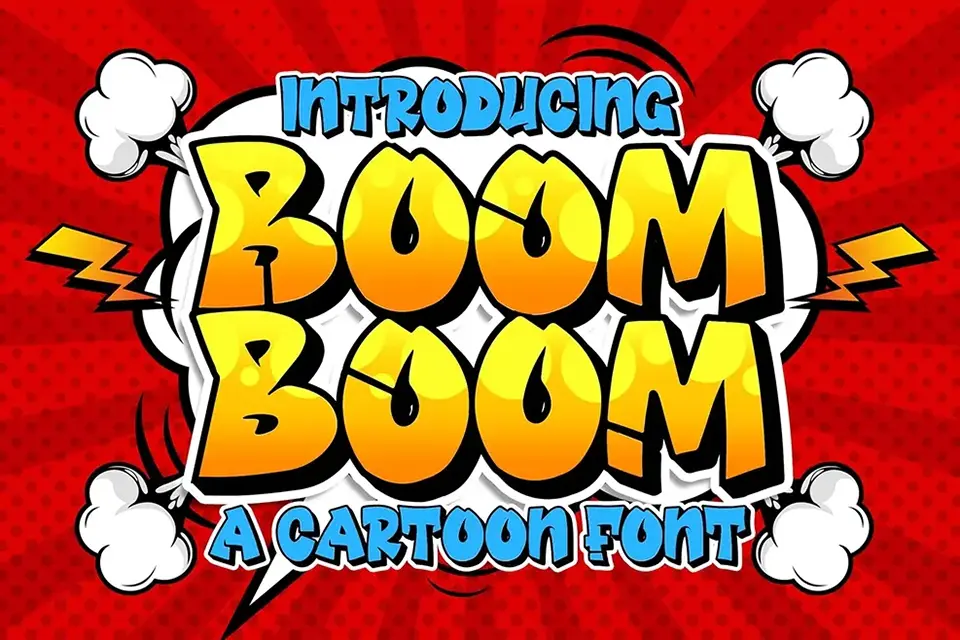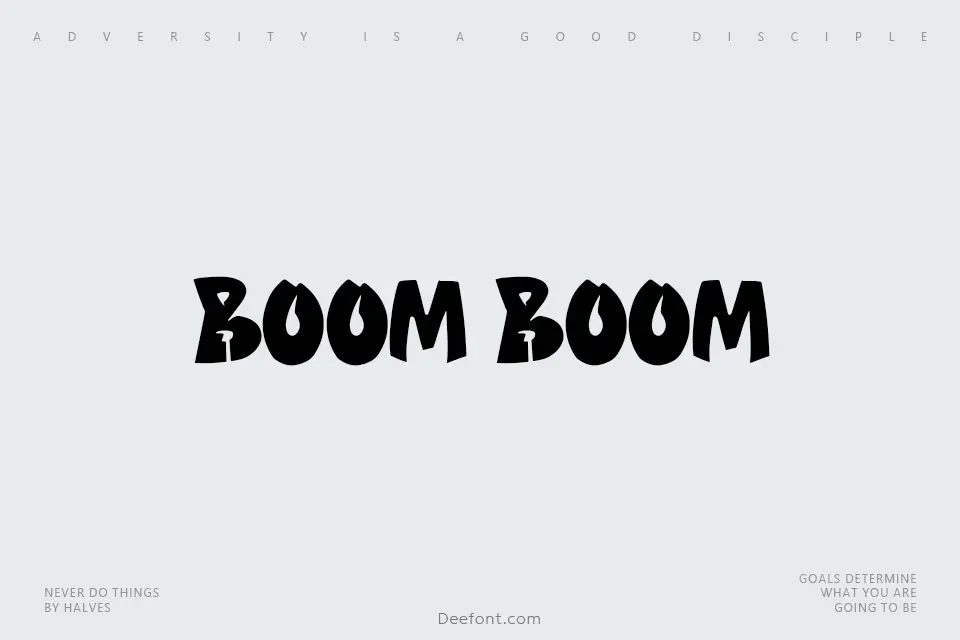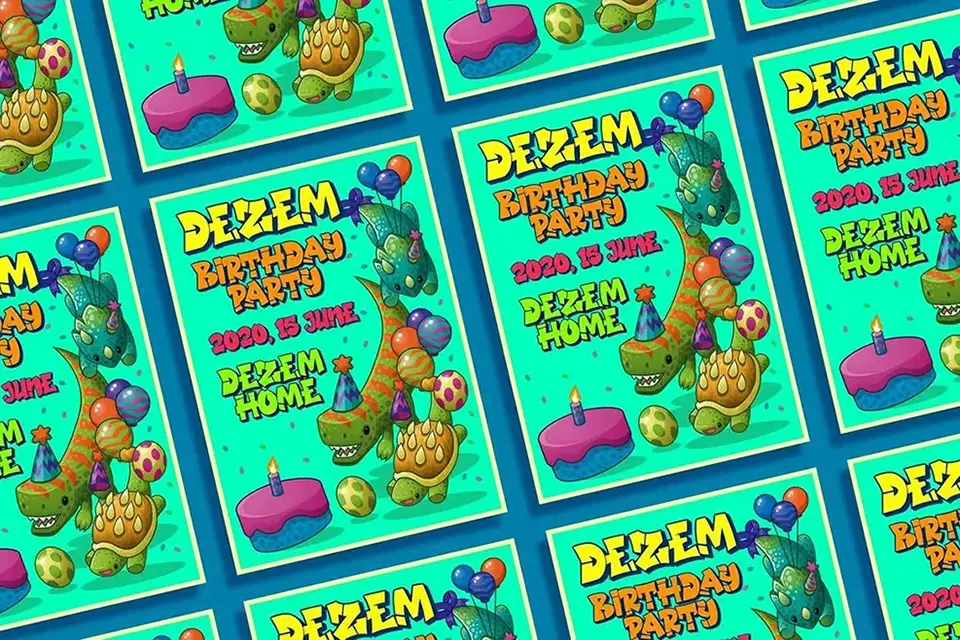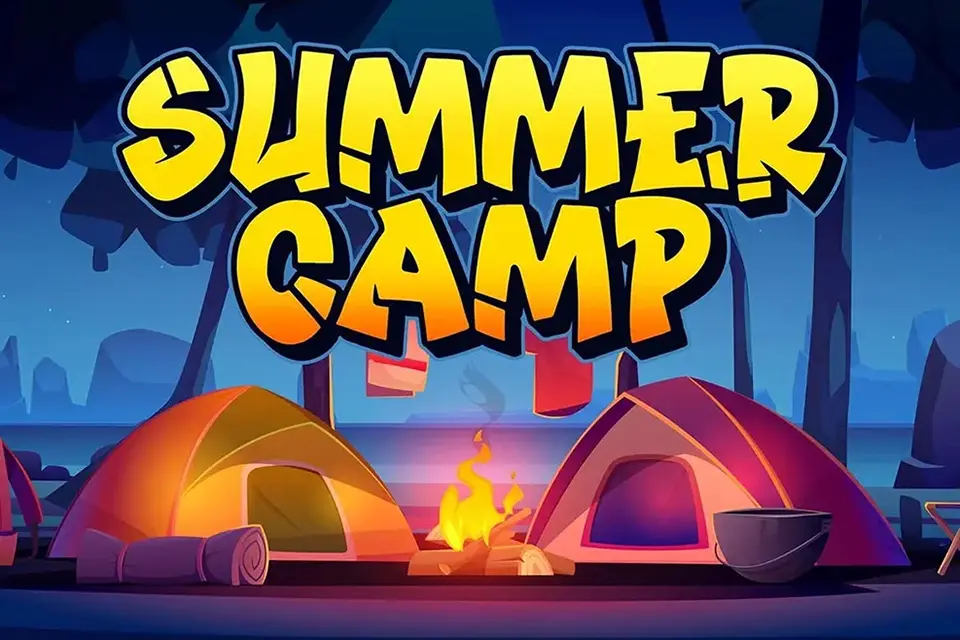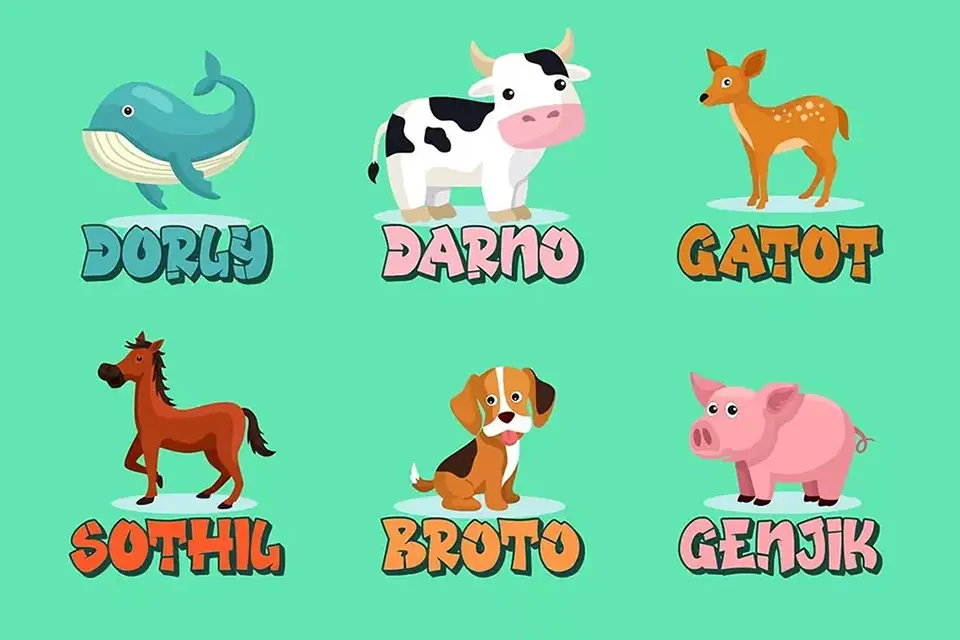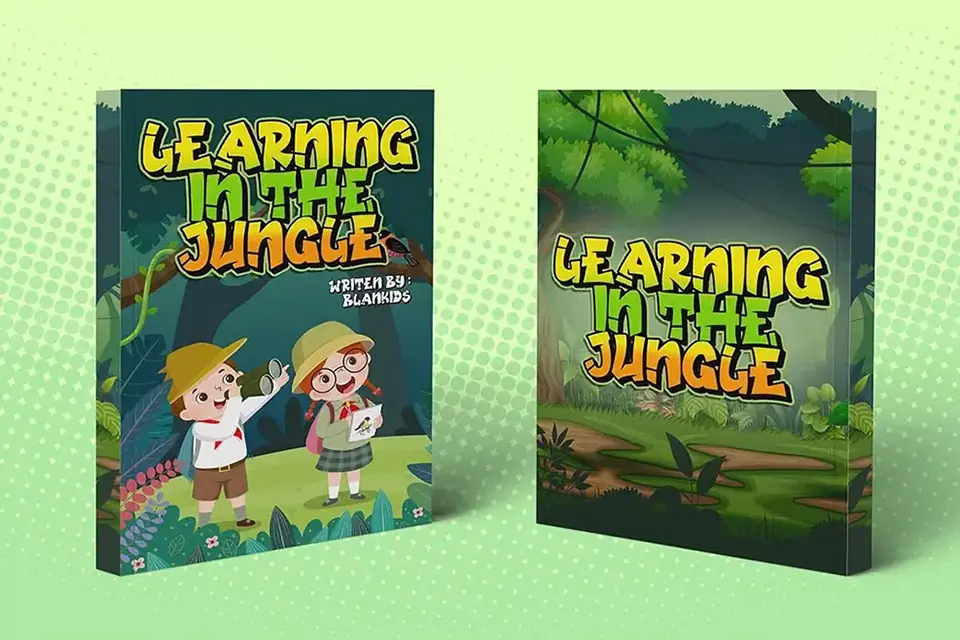
Boom Boom Font
Boom Boom is a chunky lettered and bubbly display font inspired by comic style with a fun theme. This dazzling display font features playful, rounded letterforms perfect for graffiti posters, Hip Hop music, kids posters, flyers, children’s books, cartoons, and comics. With multilingual accent support and exceptional versatility, it transforms creative ideas into eye-catching designs suitable for headlines, signage, and creative branding projects. The font includes uppercase, lowercase, numbers, punctuation, and extensive multilingual support across 253 languages.